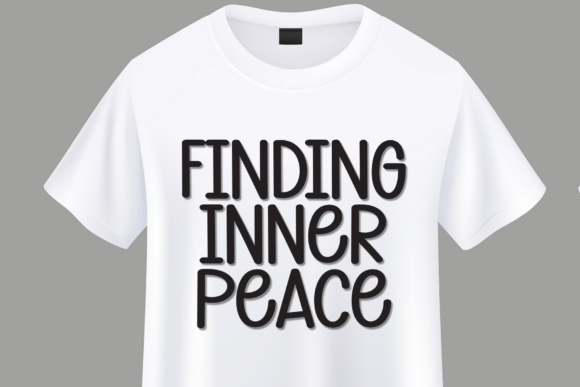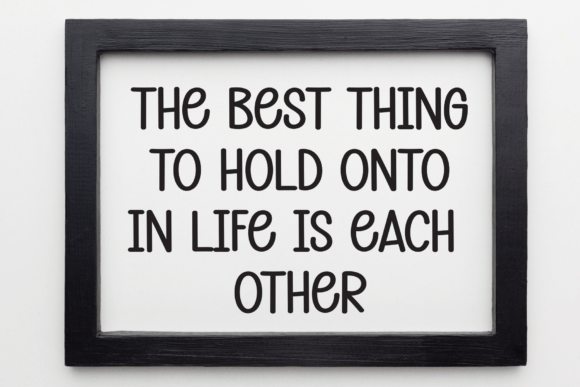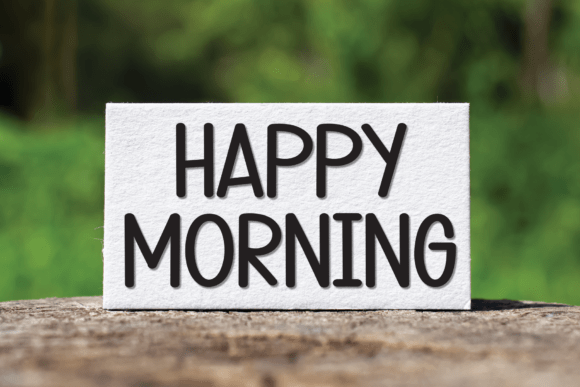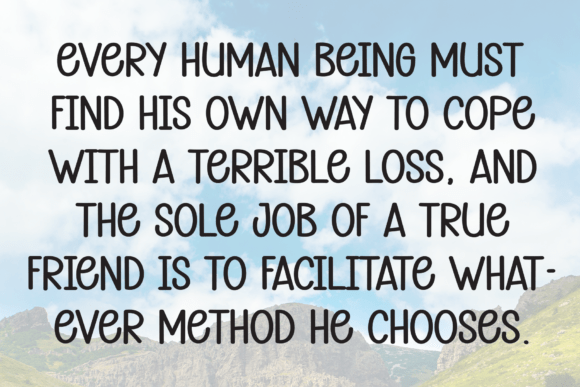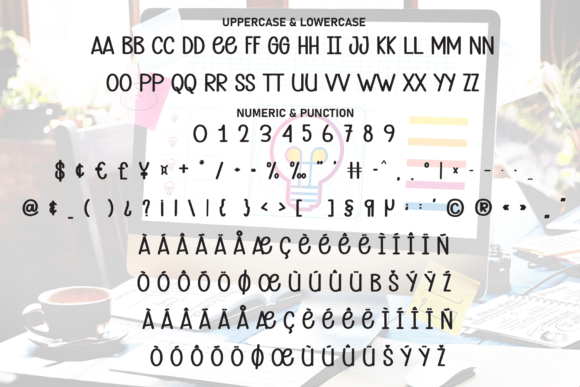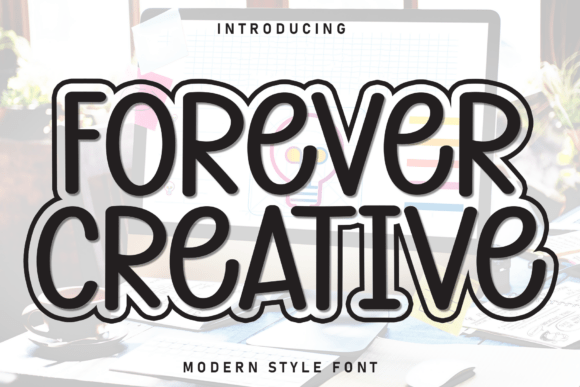
Introducing Forever Creative Font: Unleash Your Artistic Flair
Are you a designer, crafter, or DIY enthusiast looking for a font that embodies creativity and playfulness? Look no further than Forever Creative Font! This fun and friendly font is designed to capture the essence of artistic expression, making it perfect for creative branding, crafts, DIY products, and design studios.
Clean, Playful, and Bold
Forever Creative Font boasts clean and playful lettering that is both bold and accessible. Its unique charm makes it an excellent choice for designers and crafters who want to add a touch of personality to their projects. Whether you’re creating a logo, crafting a handmade product, or designing a website, this font is sure to make your work stand out.
Perfect for Creative Branding
In today’s competitive market, branding is everything. Forever Creative Font is designed to help you establish a strong visual identity that reflects your creative personality. Its bold and playful design makes it perfect for:
- Logos and business cards
- Website headers and footers
Crafting and DIY Projects
If you’re a crafter or DIY enthusiast, you’ll love Forever Creative Font! Its playful design makes it perfect for:
- Handmade product labels and packaging
- Crafting tutorials and patterns
- DIY project signs and displays
- Stationery and journaling
Design Studios and Agencies
Design studios and agencies can also benefit from Forever Creative Font. Its clean and bold design makes it perfect for:
- Client branding and identity projects
- Web design and development projects
- Print materials and collateral
- Presentations and pitches
Key Features of Forever Creative Font
Here are some key features that make Forever Creative Font a must-have for designers and crafters:
- Clean and playful lettering
- Bold yet accessible design
- Perfect for creative branding, crafts, and DIY projects
- Great for design studios and agencies
- Easily readable and versatile